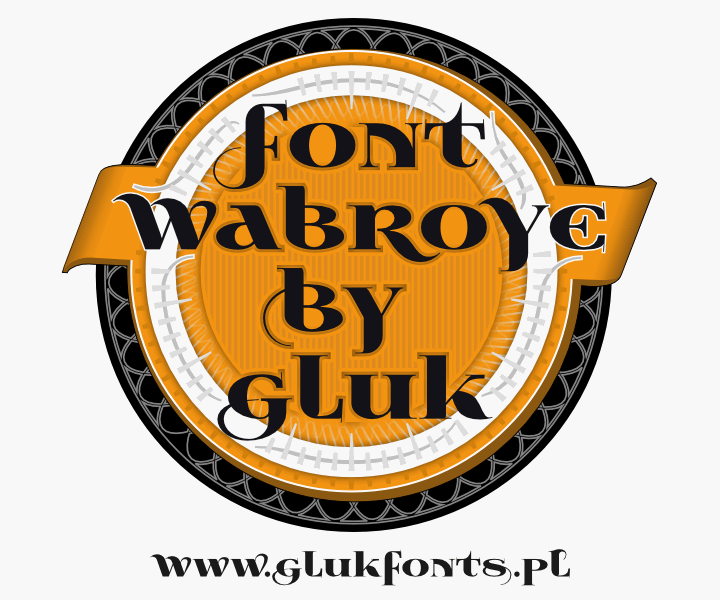
Free Wabroye Font
Featuring the unforgettable free wabroye font. Download this free typeface from the original source of Font Space. Easily amaze your audience with this fancy font and make your graphic designs pop up from the crowd.